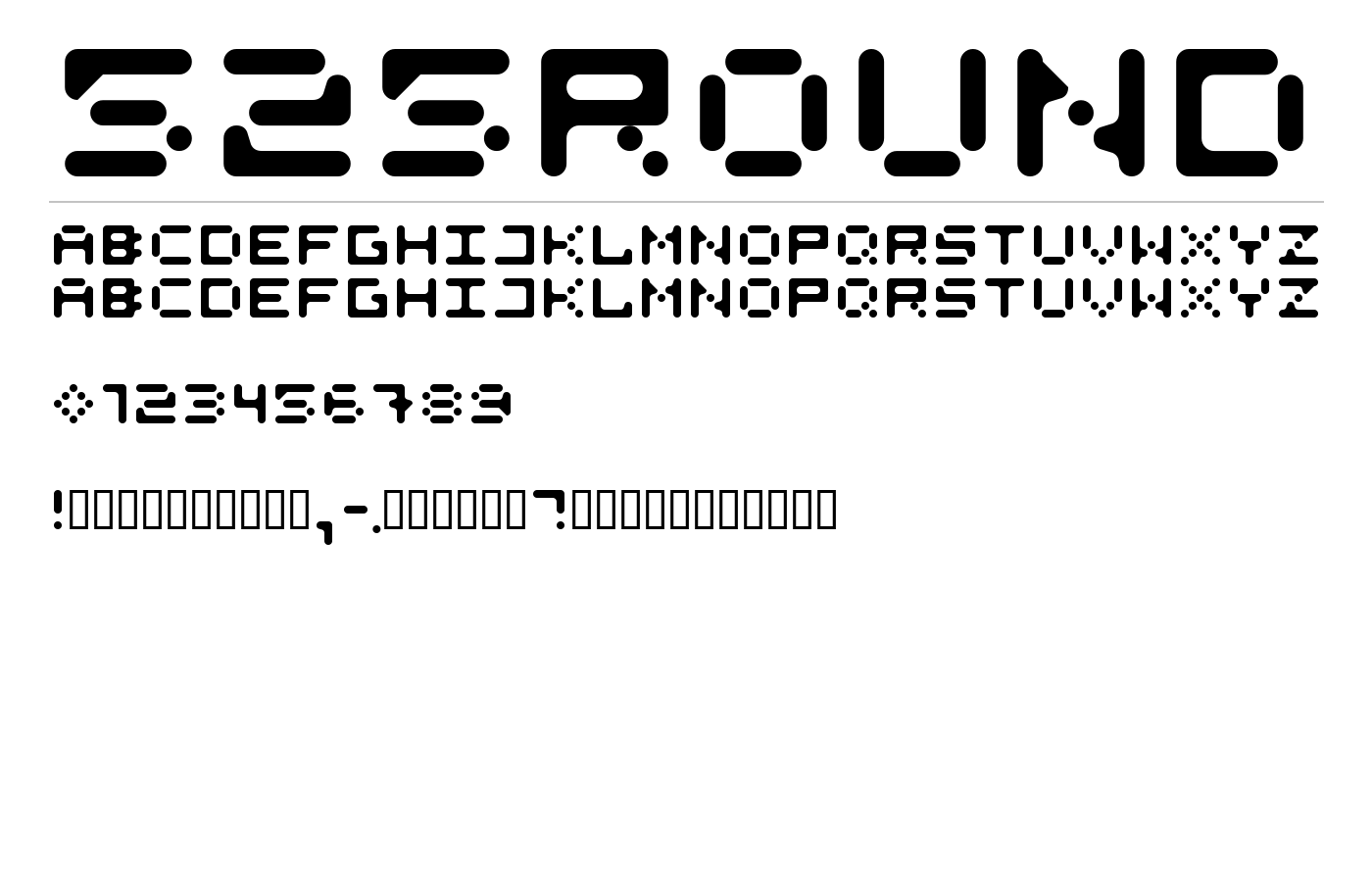
525round is a bold, geometric sans serif font characterized by its rounded corners and modular, almost pixel-like glyph shapes. Its high x-height and consistent stroke weight give it a modern, tech-inspired feel, making it suitable for futuristic branding, digital displays, and creative headlines that seek a distinctive, playful yet structured look. This font works best for graphic projects that want to convey innovation and a unique personality.
525round Font